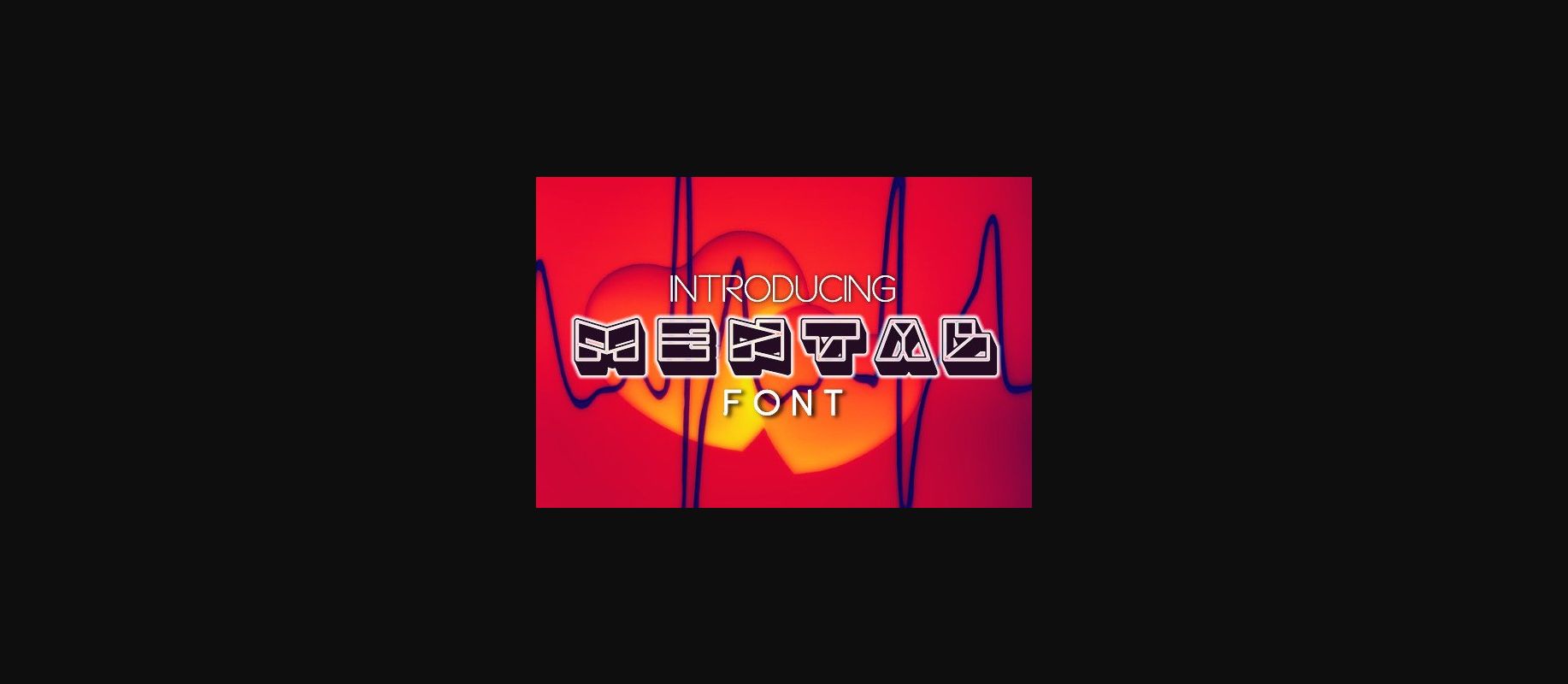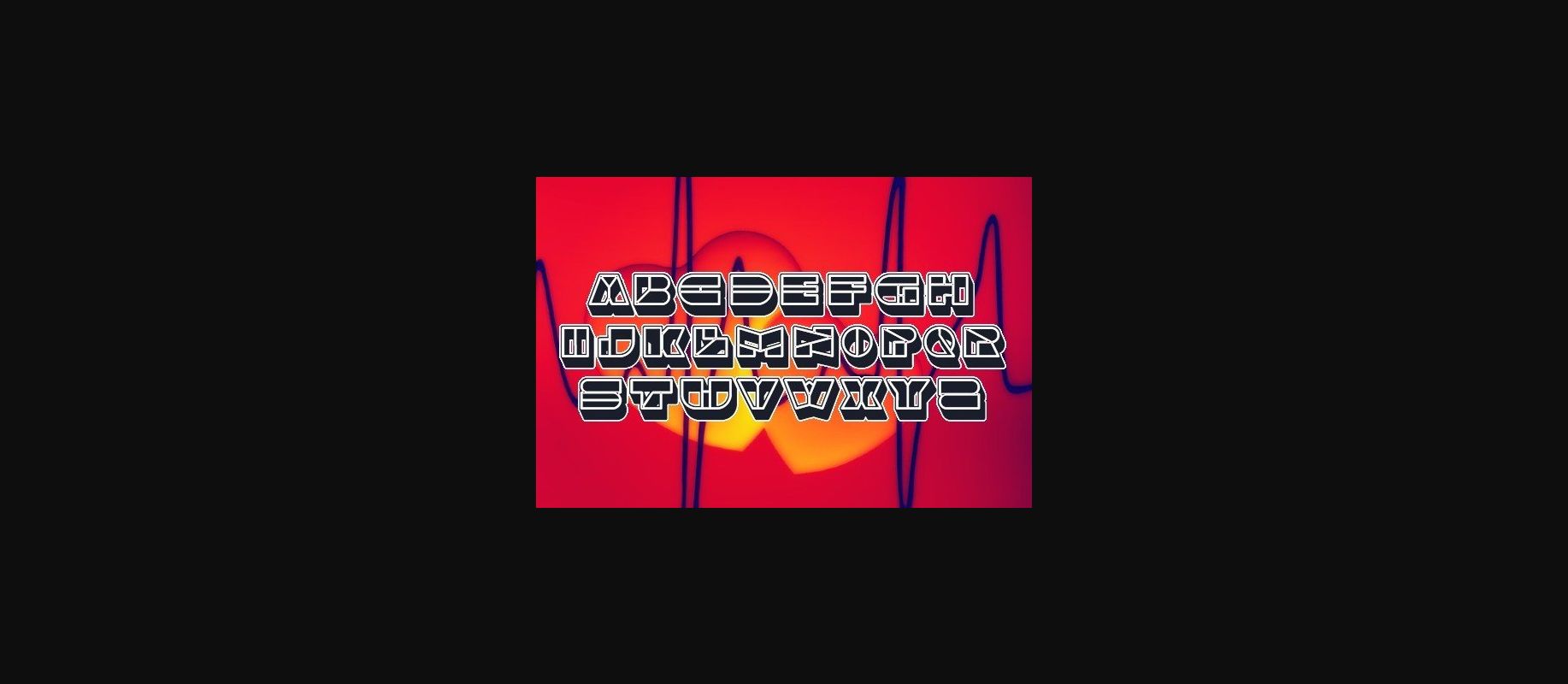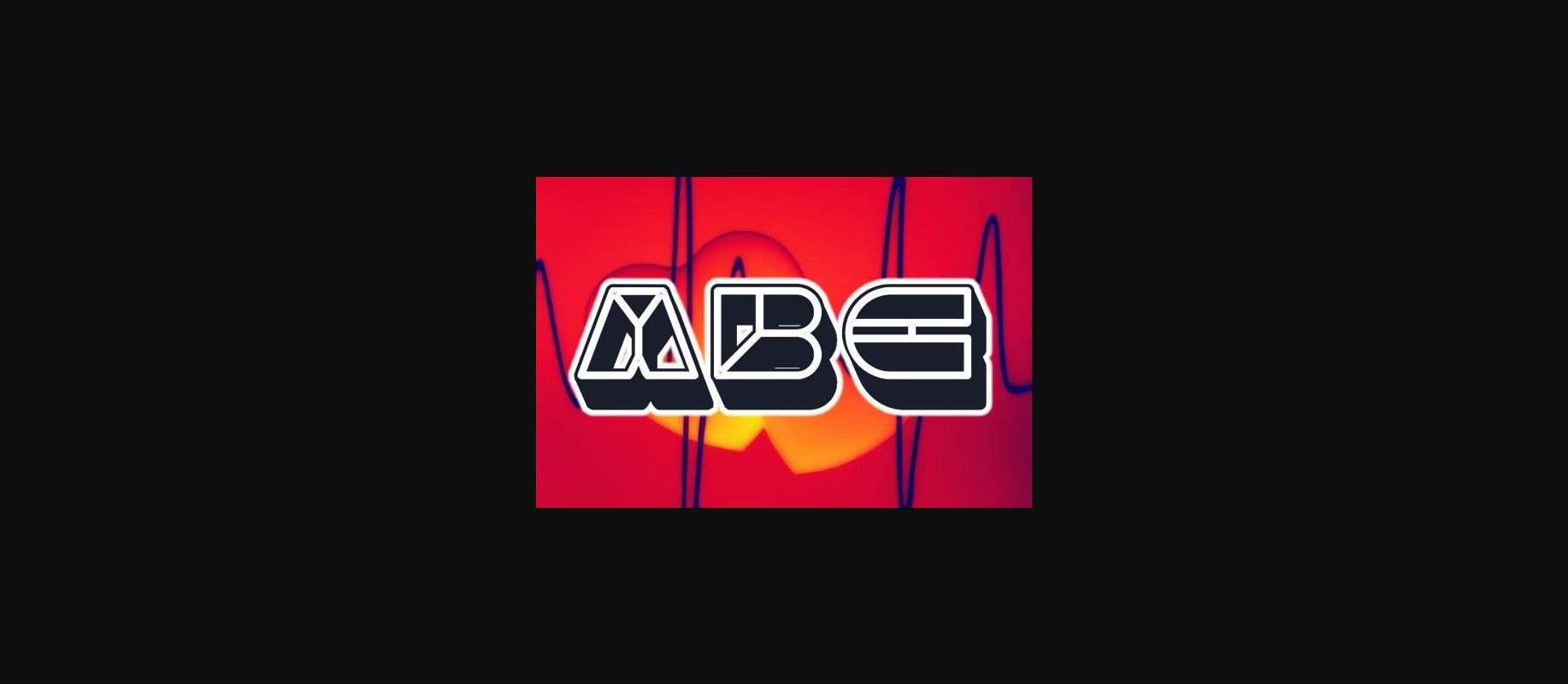
About Mental Font
Mental is an awesome 3D decorative typeface that will look stunning on any of your designs. Use this font on posters, flyers, and banners.